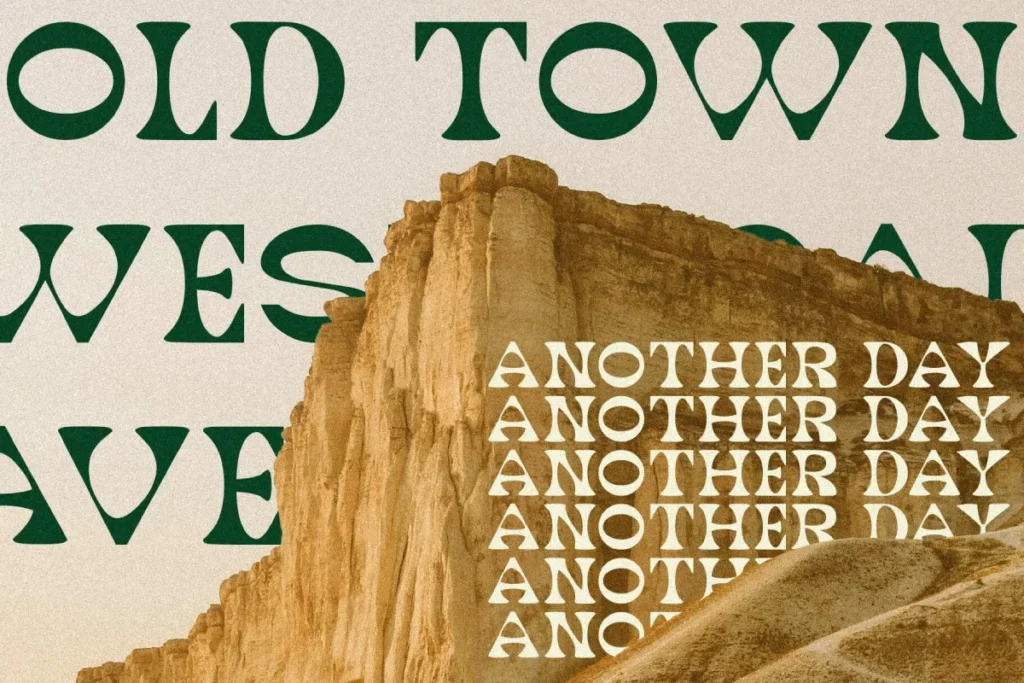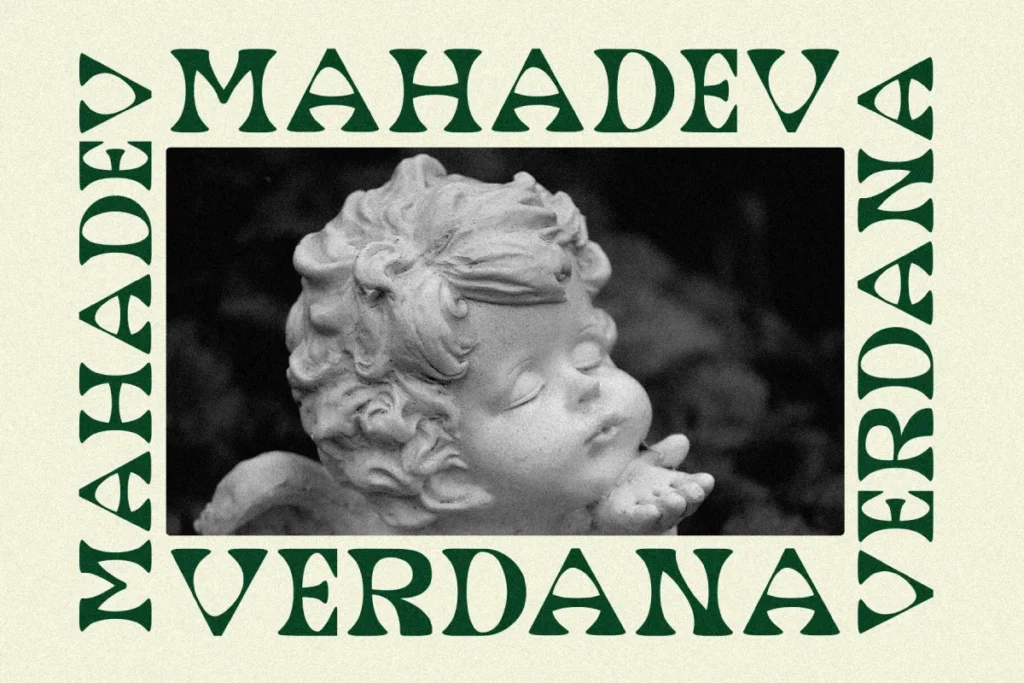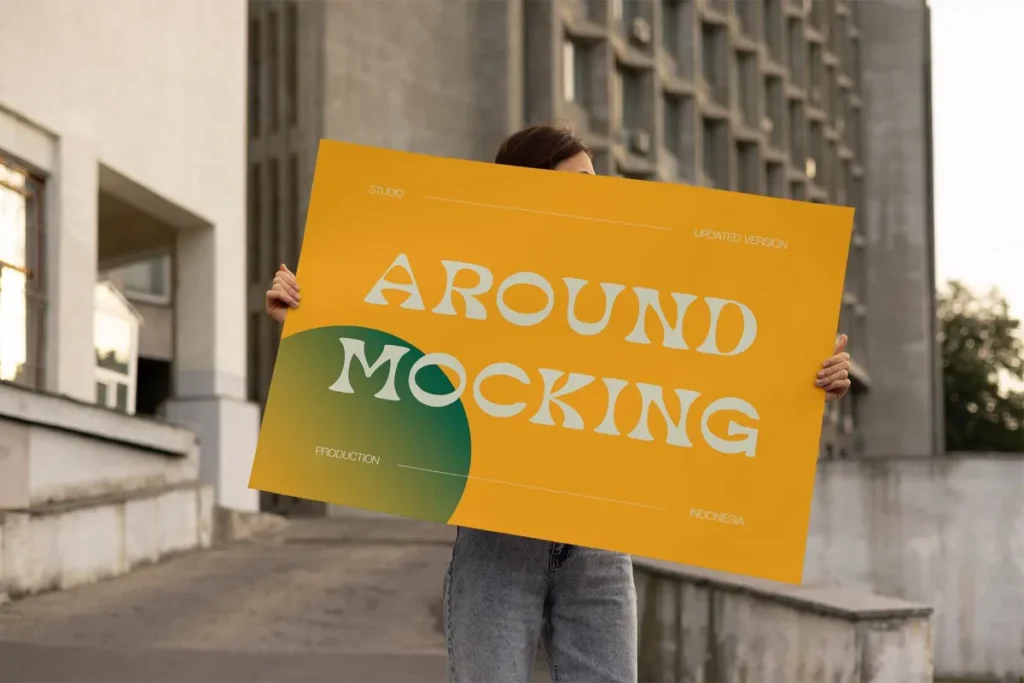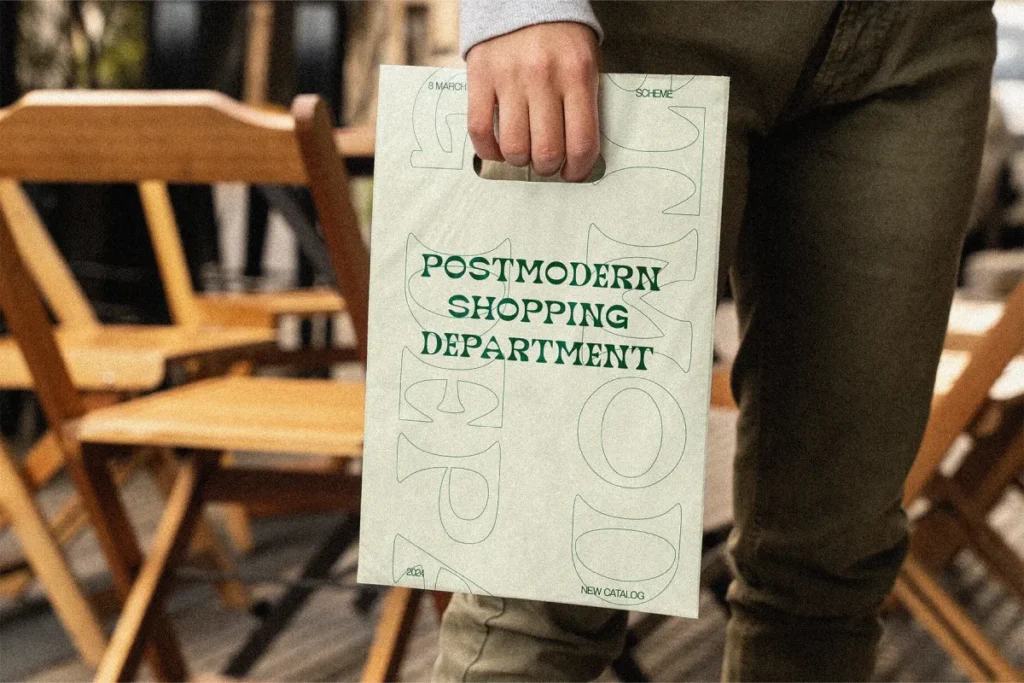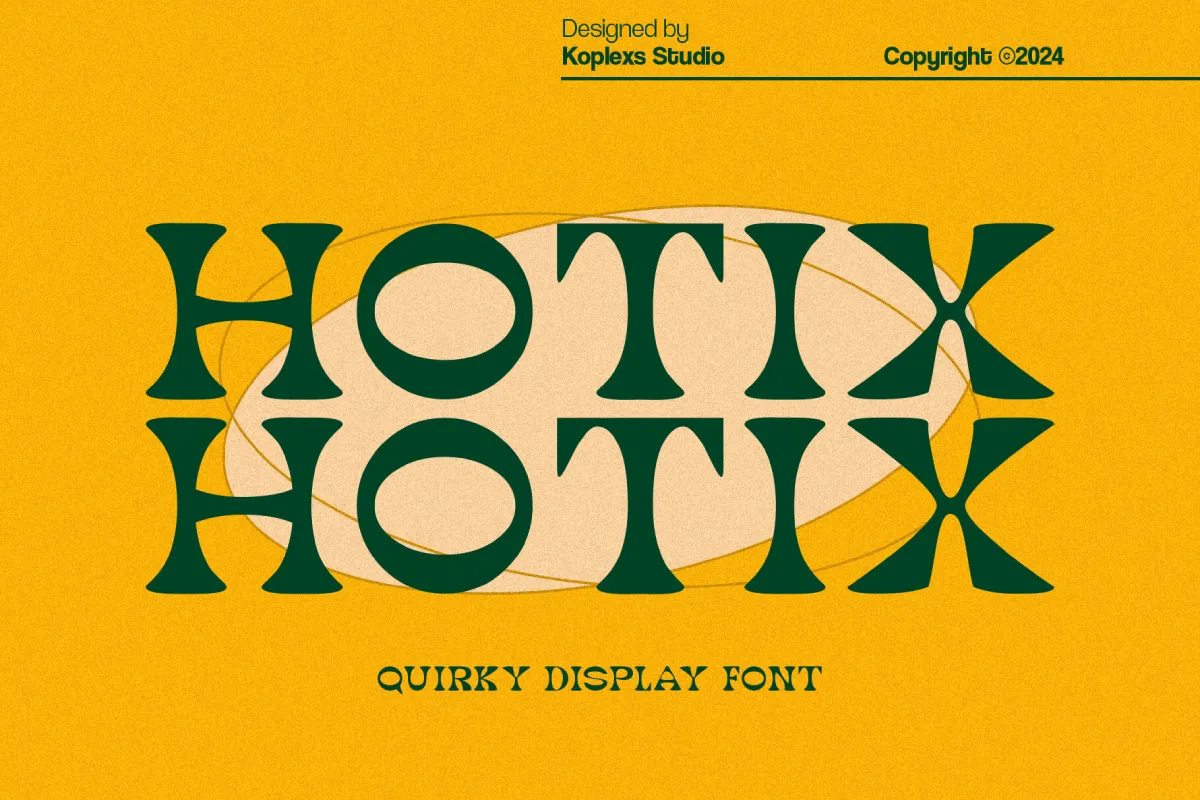
Hotix Font is a quirky retro display typeface designed to give your projects a bold, stylish, and eye-catching personality. Featuring high-contrast shapes, playful curves, and vintage charm, this font is perfect for designers who want to create unique branding, standout logos, expressive posters, packaging, apparel prints, and engaging social media visuals. Its distinctive character makes every design feel fresh, modern, and memorable.
Crafted by Koplexs Studio, Hotix Font delivers strong aesthetics for both digital and print use. Ideal for creative businesses, fashion brands, lifestyle products, editorial layouts, and marketing materials, it brings a confident and artistic touch to any project. Whether you’re building a brand identity or designing trending merchandise, Hotix Font offers versatility and visual impact. Elevate your work today with a typeface that blends retro style and modern creativity.